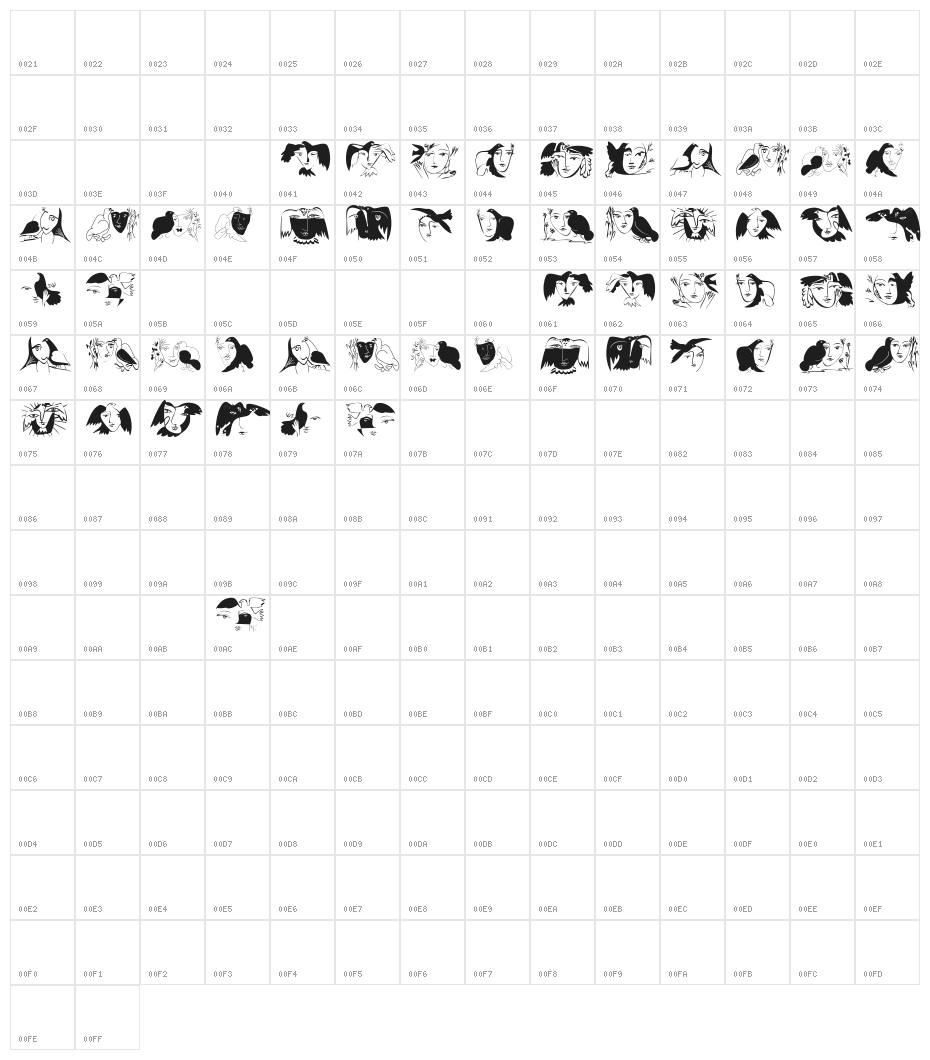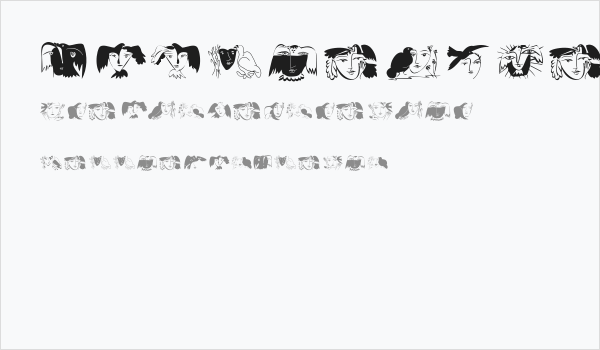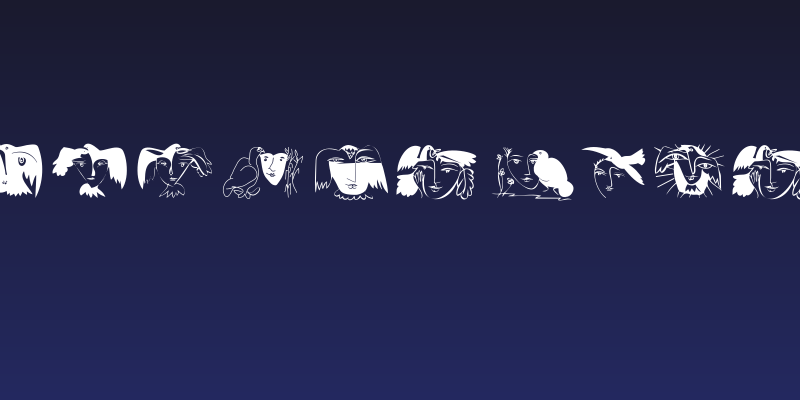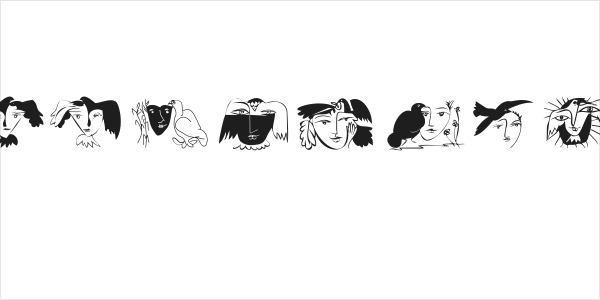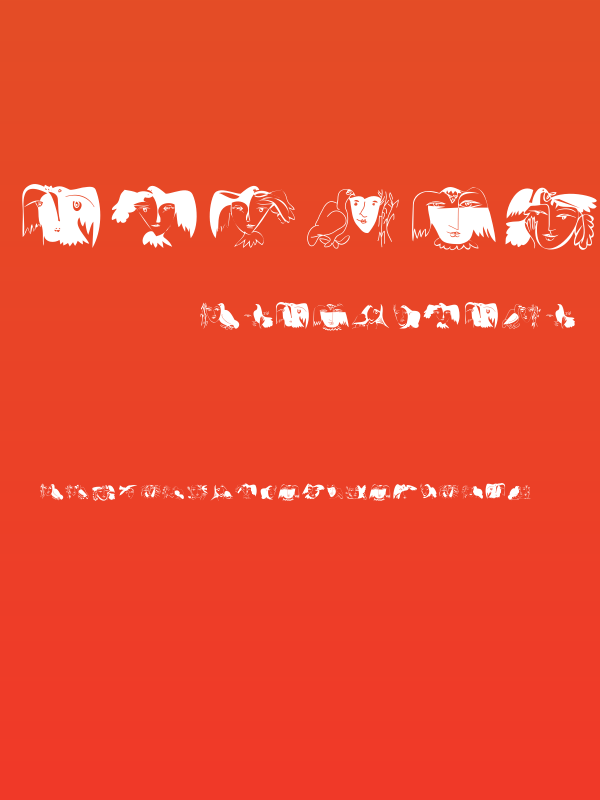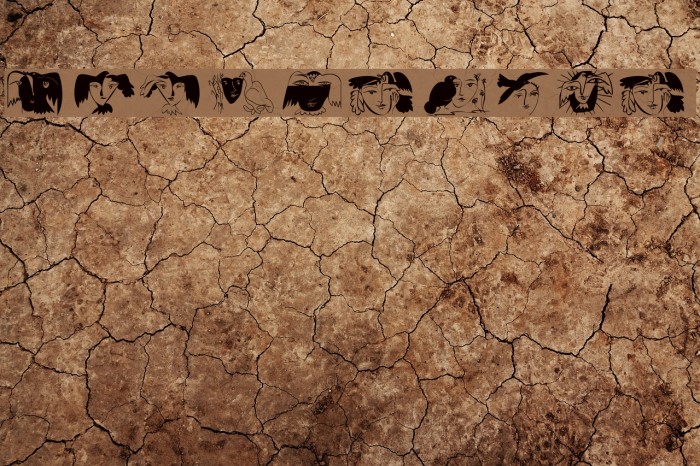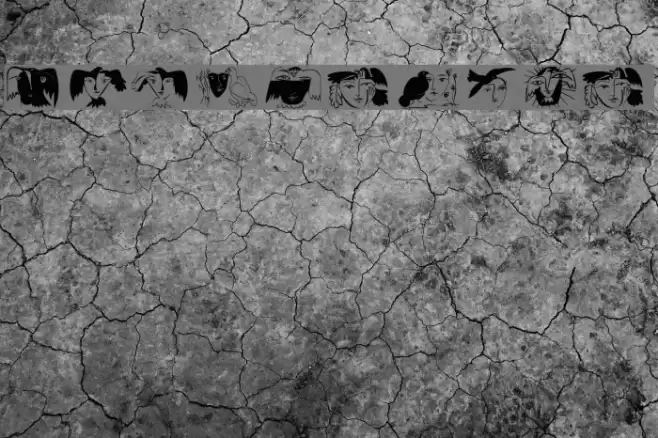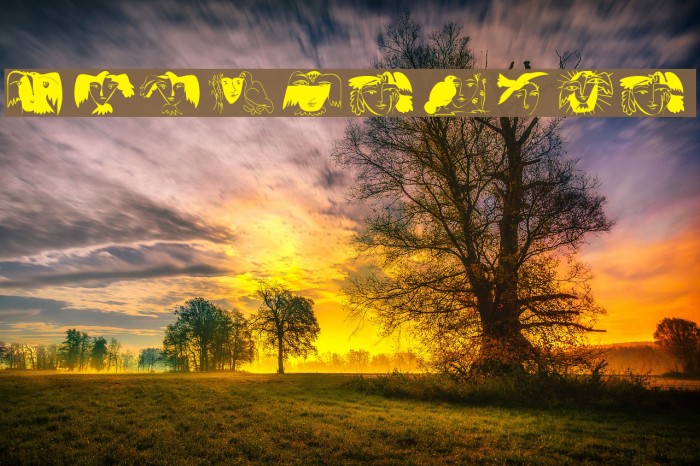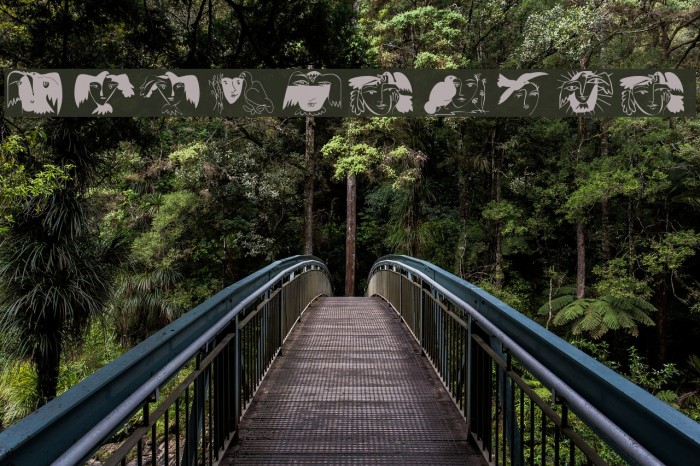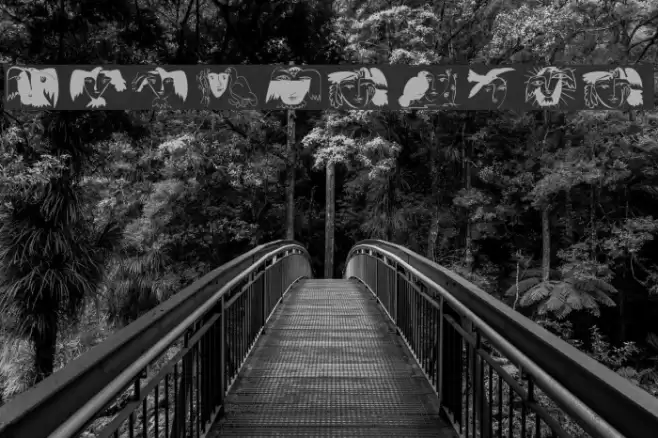
Pabloesque2005 Font
| Stile generale | Artistic, Surreal, Decorative |
| Caso d'uso | Logos, Posters, Art Projects |
| Progetti proposti | Ideal for art projects, creative posters, album covers, and unique branding materials. |